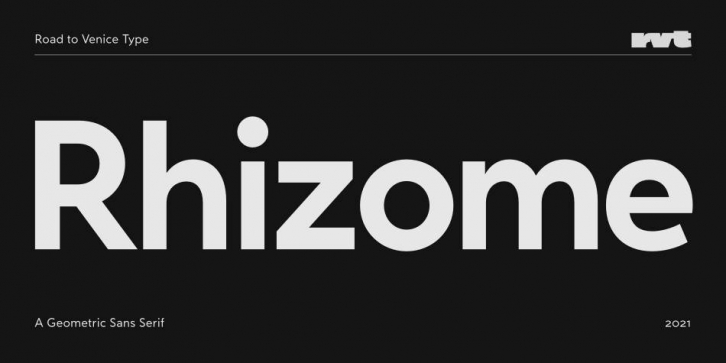
Rhizome is a sans serif font family. This typeface has ten styles and was published by Road to Venice Type.
Rhizome is a display typeface for editorial as well as setting passages of text. It combines a glimpse into the past and what was considered as visionary in typography in the beginning of the 20th century. A geometric construction is juxtaposed with classical proportions and letterforms from serif typefaces.
Although conceptualised as a neutral geometric typeface, when set in large sizes Rhizome reveals its details that render it distinguishable among its peers.